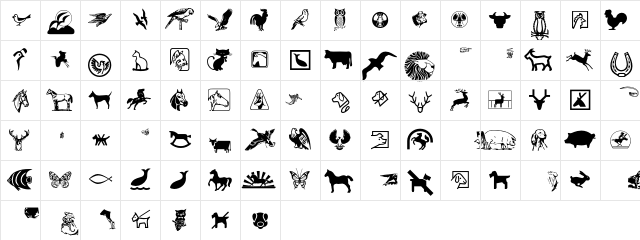
Animals P01 Free Font
Animals P01
Style: P01
Animals Family
Animals P01
Design Context for Animals
Animals is a composed and adaptable typeface that performs quietly and consistently across a wide range of design contexts.